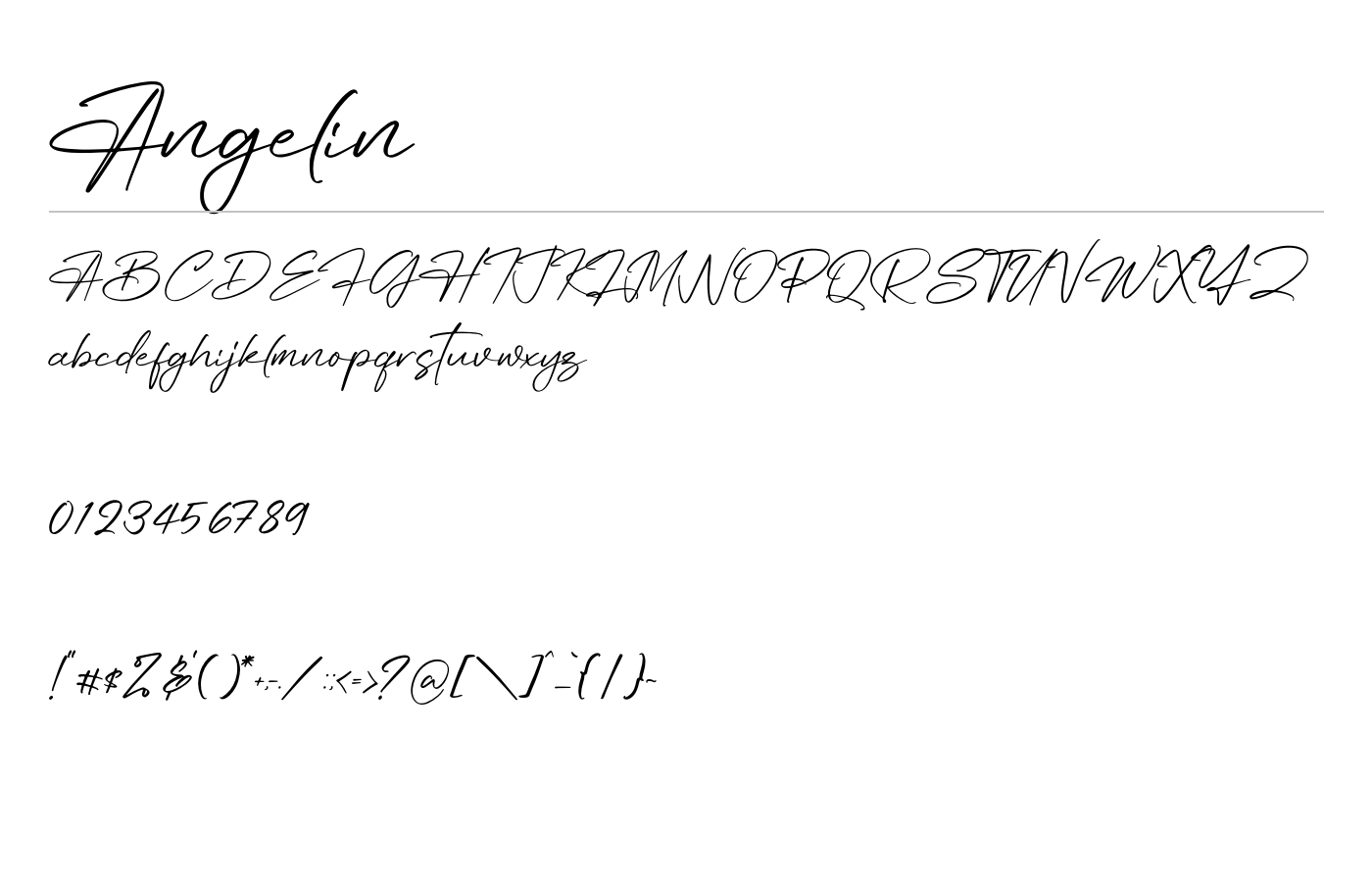
Angelin is a delicate, modern script font with a flowing, handwritten style that feels elegant and personal. Its thin, smooth strokes and graceful letterforms make it perfect for invitations, branding, and other creative projects where a touch of sophistication and warmth is desired. This font works wonderfully in decorative headlines and logos, adding a refined yet approachable character.
Angelin Font
About Angelin Font
| Font family | Angelin Font |
| Designer | Nanang Jamaludin |